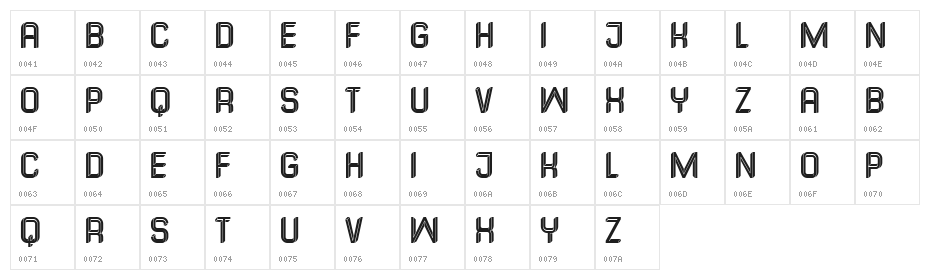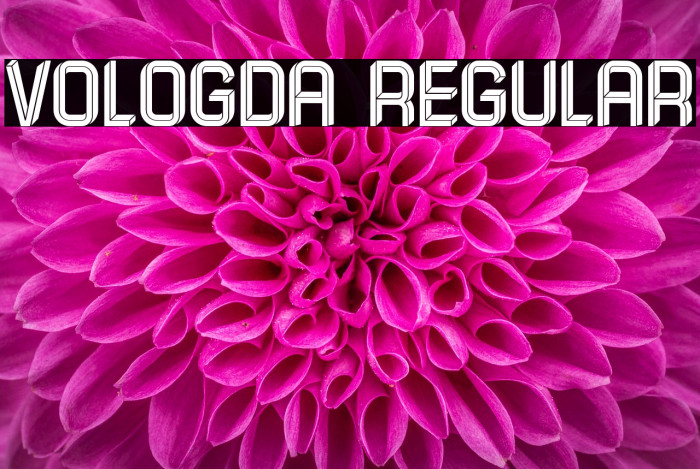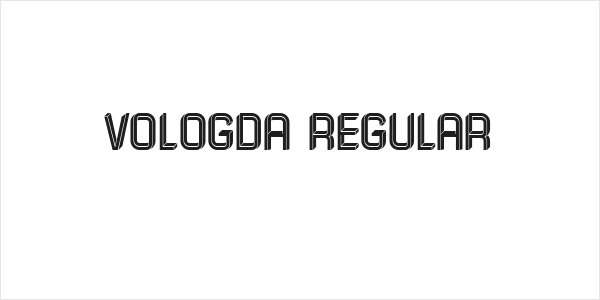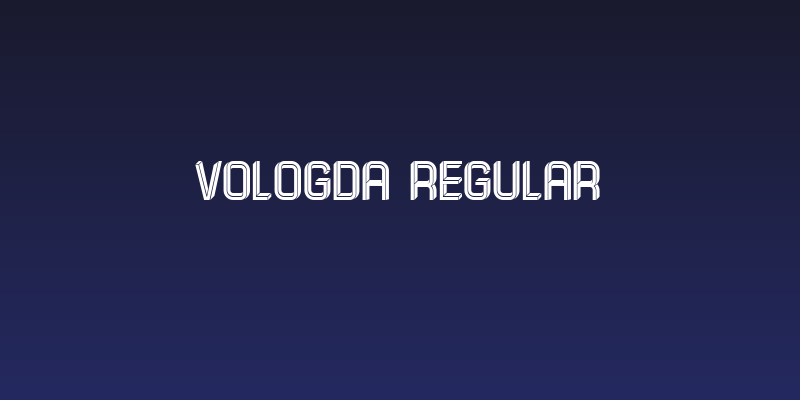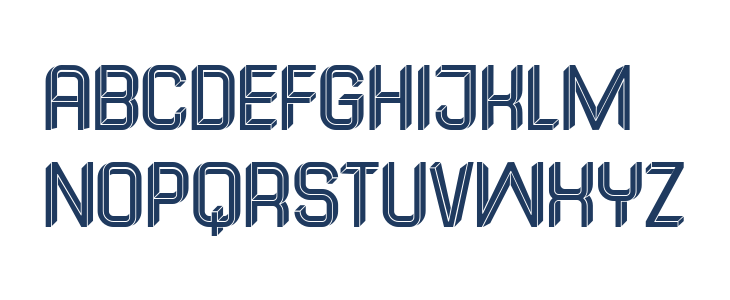
Vologda Regular Font
Vologda Regular Description
This font features a bold, geometric design with a three-dimensional effect created by shadowed lines. The characters are uppercase, with a consistent height and width, giving a uniform appearance. The style is modern and industrial, with a strong emphasis on structure and form. The lines are clean and precise, with sharp angles and edges that create a sense of depth. This font is highly decorative, making it suitable for attention-grabbing headlines or logos. The unique shadowing adds a layer of complexity, enhancing its visual appeal.
| Proposed Projects | This font is perfect for creating striking headlines, logos, posters, and branding materials that require a modern and industrial look. |